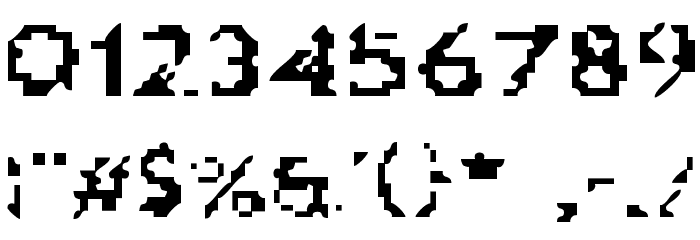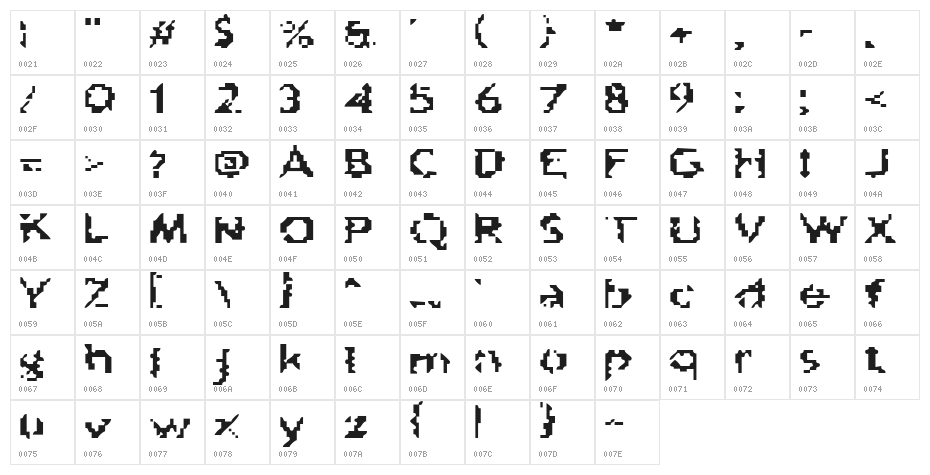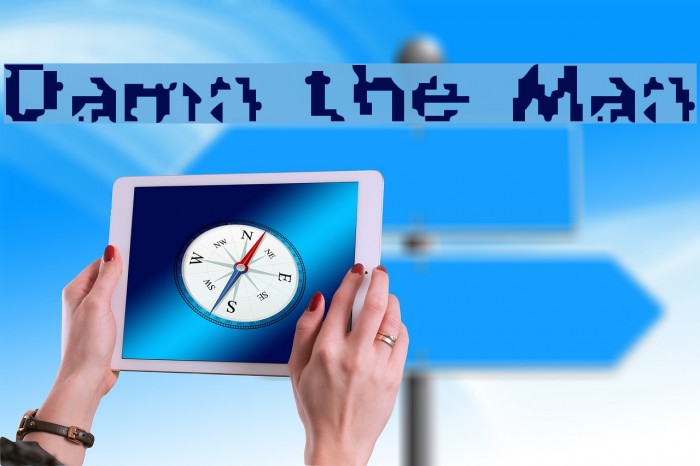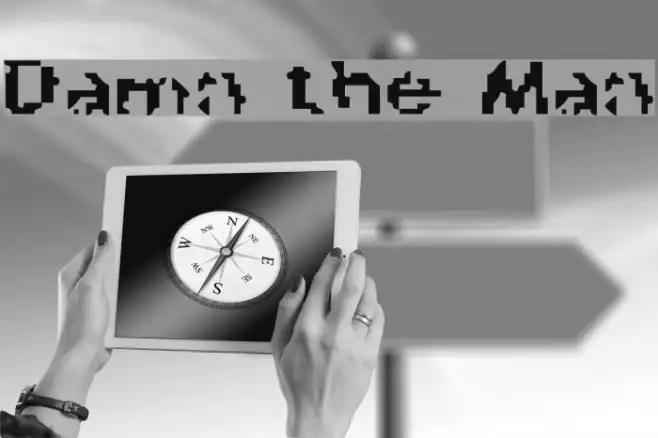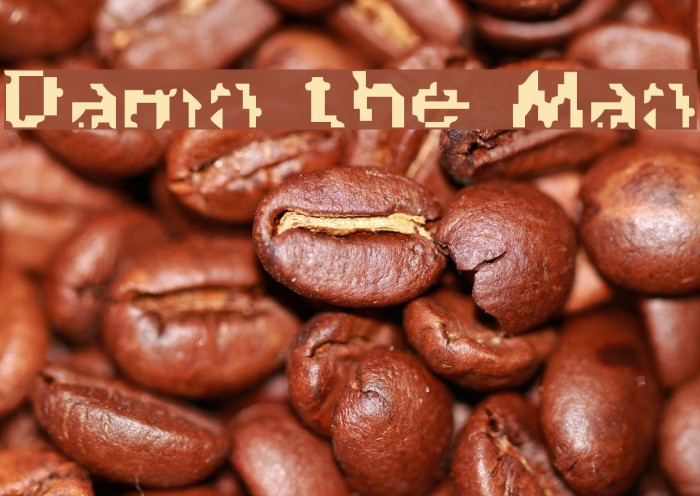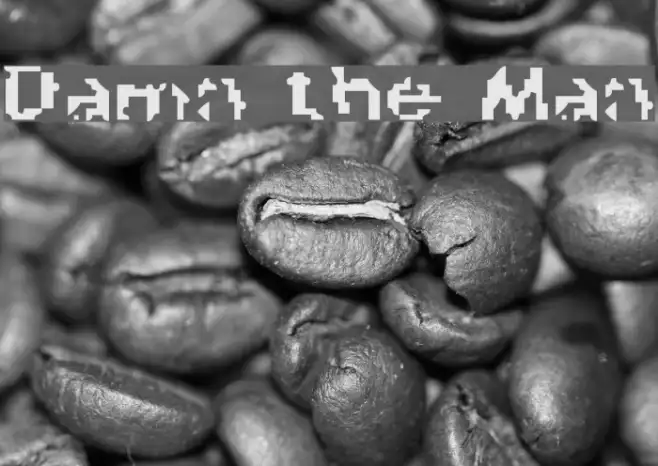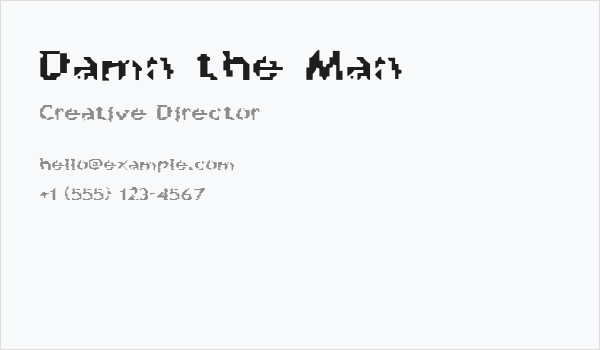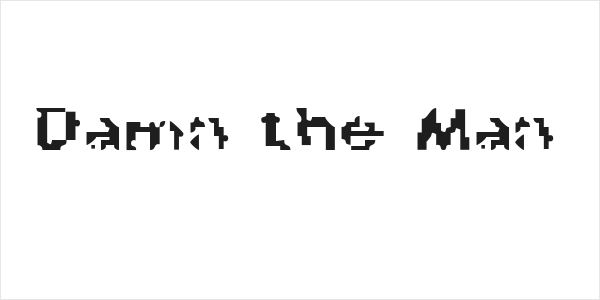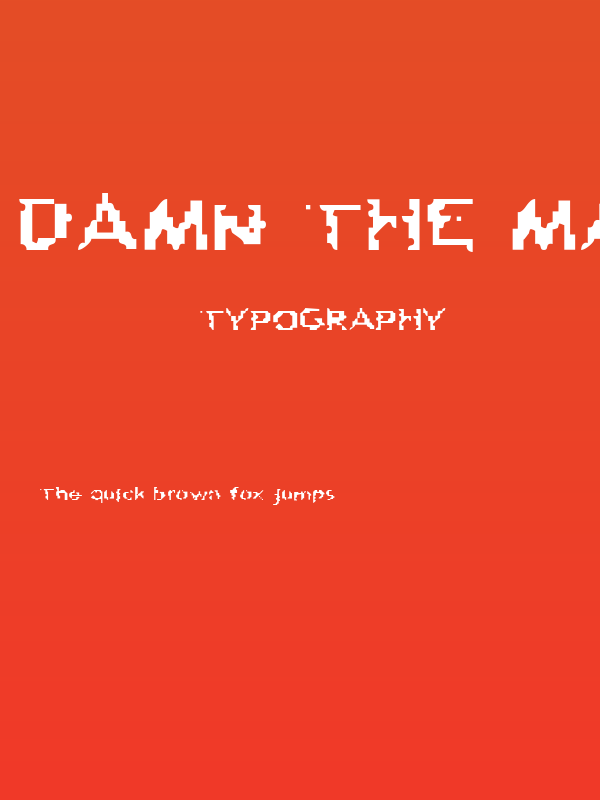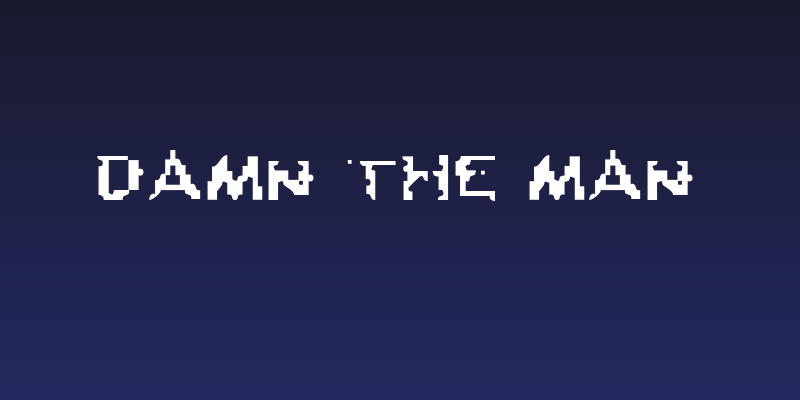
Damn the Man Font
Damn the Man Description
This font features a bold, jagged design with a distinctly edgy and rebellious aesthetic. The characters are constructed with sharp angles and irregular edges, giving them a rough, distressed appearance. This style evokes a sense of urban grit and raw energy, making it ideal for projects that require a bold statement. The uppercase and lowercase letters maintain a consistent style, with numbers and special characters following suit. The overall look is chaotic yet structured, capturing attention with its unique and unconventional form.
| Overall Style | Modern, Edgy |
| Proposed Projects | Ideal for album covers, streetwear branding, posters, and edgy graphic designs. |